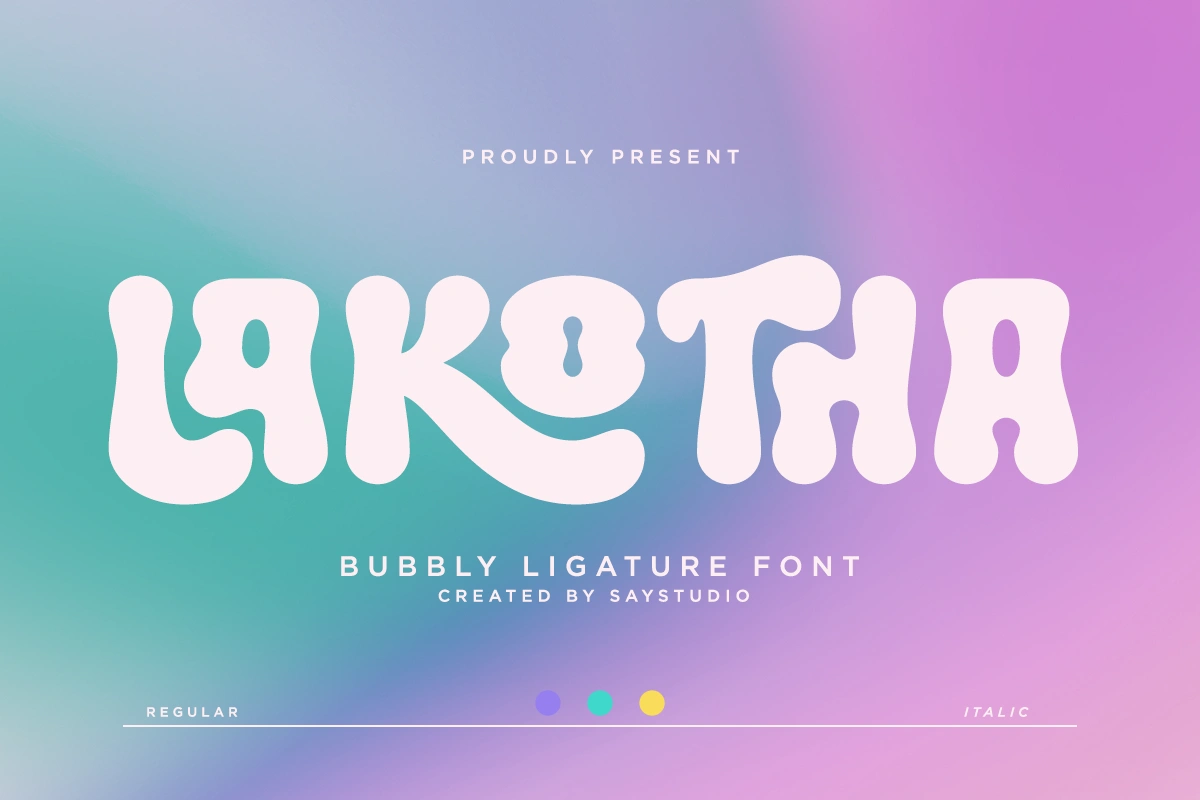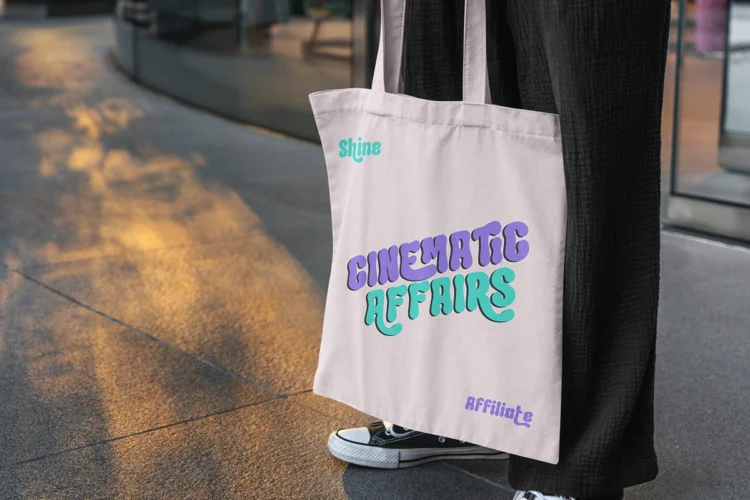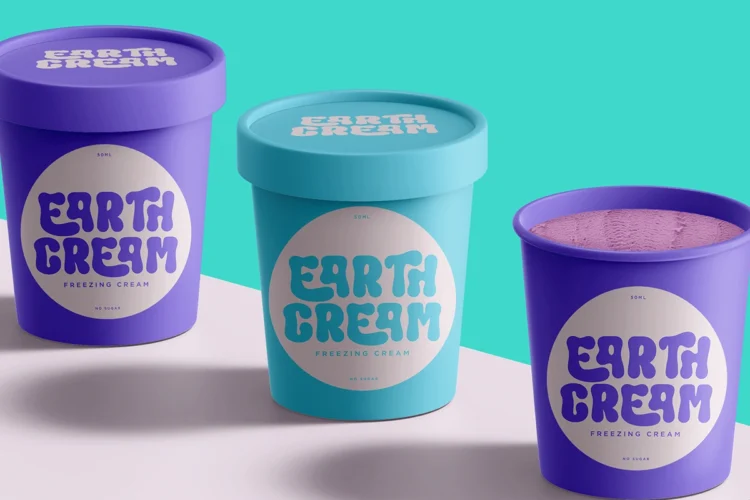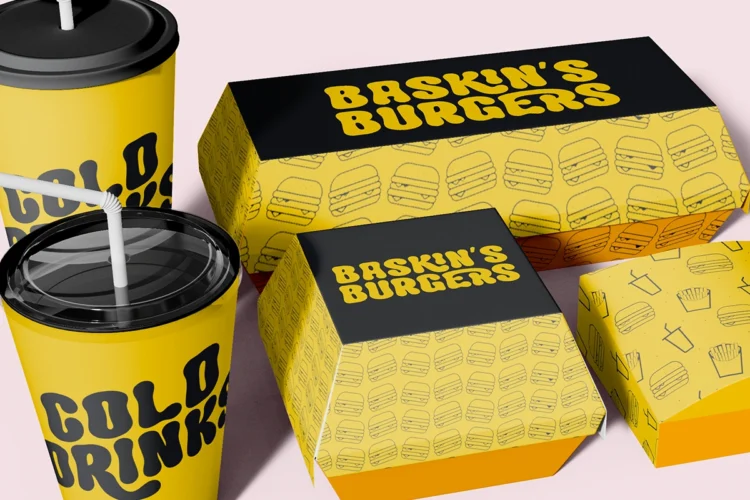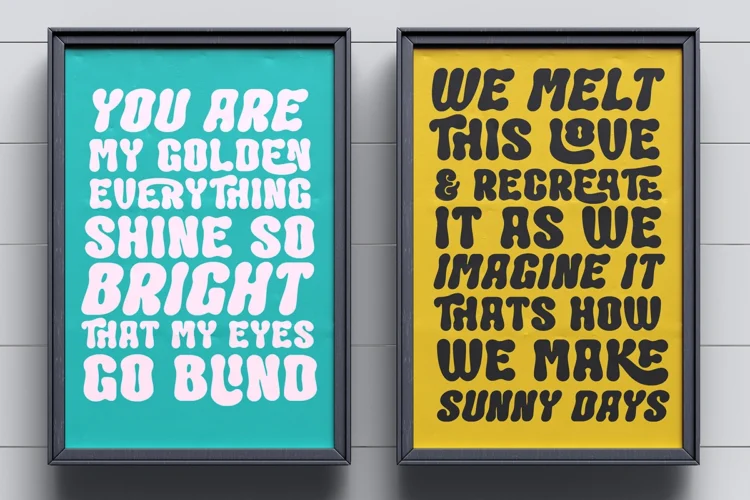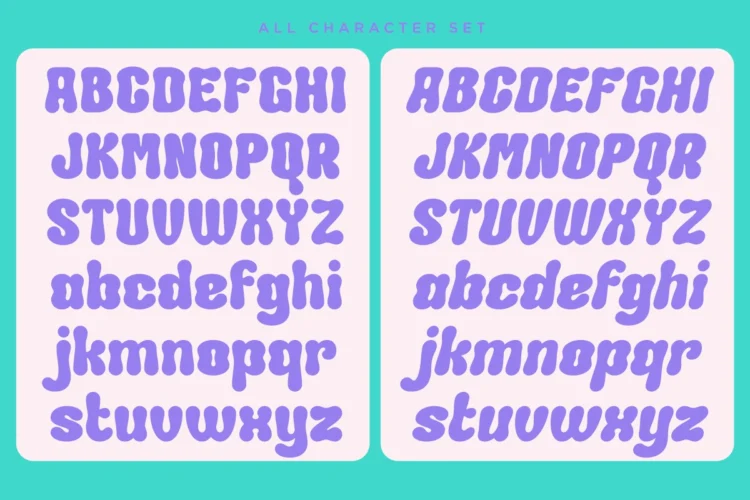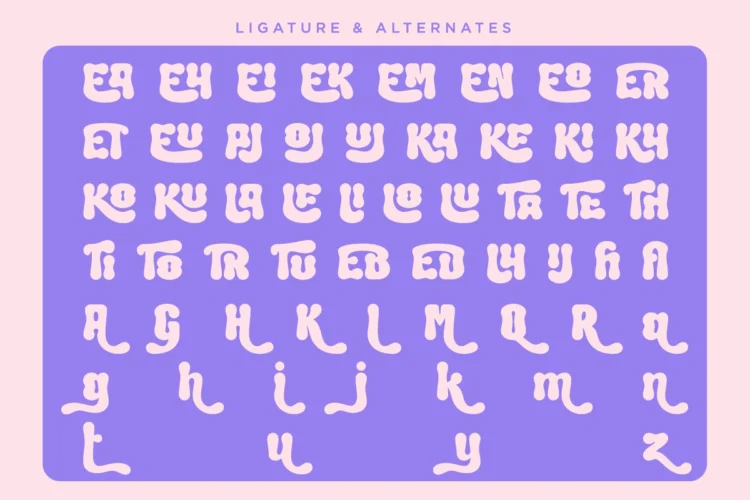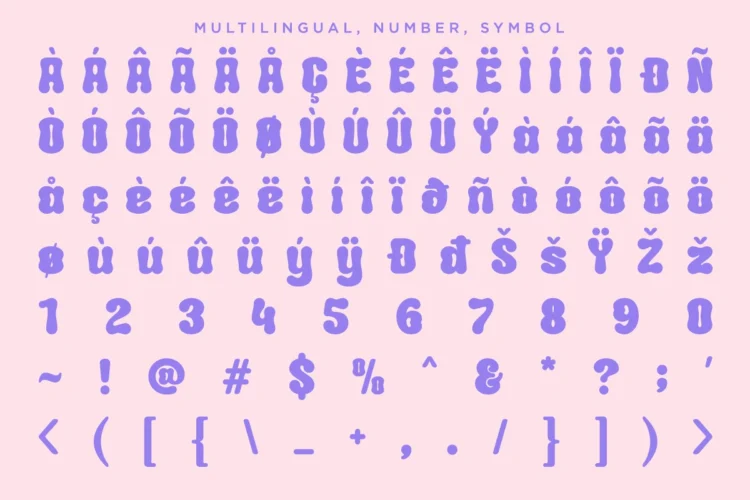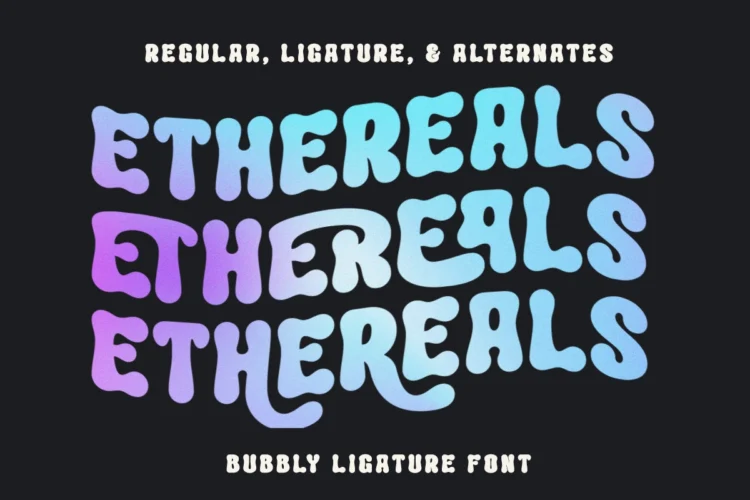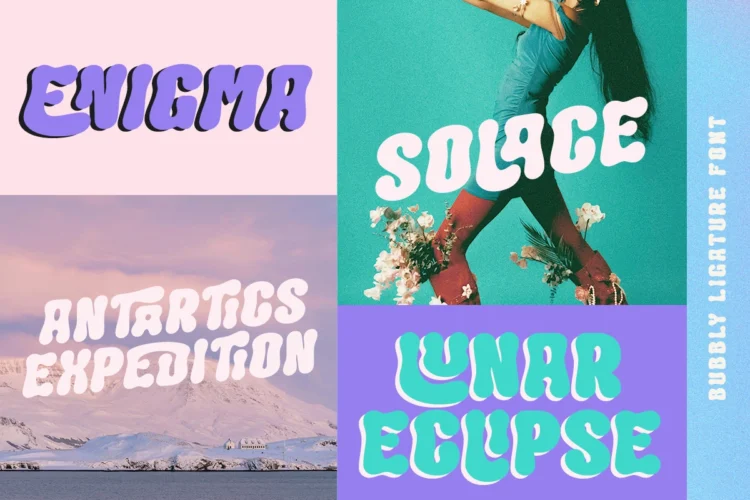
Lakotha – Ligature Display Font
Lakotha is a playful, bubbly ligature font designed by Say Studio. Its smooth, rounded curves and organic letterforms create a fun, friendly, and expressive look — perfect for designs that aim to feel lively and approachable. This font’s thick strokes and fluid shapes make it ideal for modern branding, children’s designs, social media graphics, posters, and packaging. With both regular and italic styles, Lakotha captures the joyful energy of retro bubble typography with a fresh, contemporary twist.